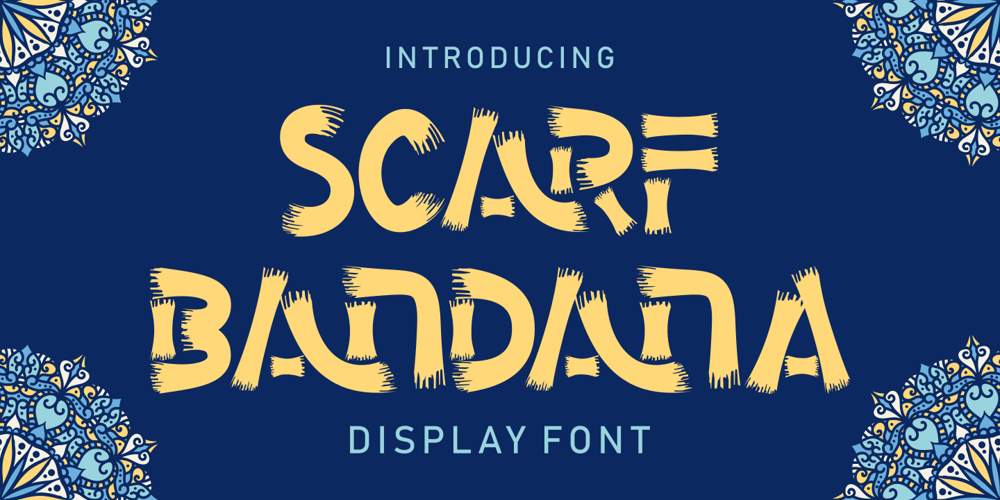
Scarf Bandana
Scarf Bandana font
Scarf Bandana Font Family was designed by Putra Novembria Candra Kusuma and published by Putracetol. Scarf Bandana contains 1 styles and family package options. Scarf Bandana is a Brush Display Font. These fonts can be categorized into brush and display fonts. With a unique character, this font will make your project stand out. Suitable for logos, branding, crafting, svg, book covers, posters, headlines, labels, t-shirts and more. This font also has 92 ligatures, so it will make this font more interesting and unique.This font is also support multi language.This font can be used and supported in various programs and OS, such as procreate, cricut, windows, macOS and others.